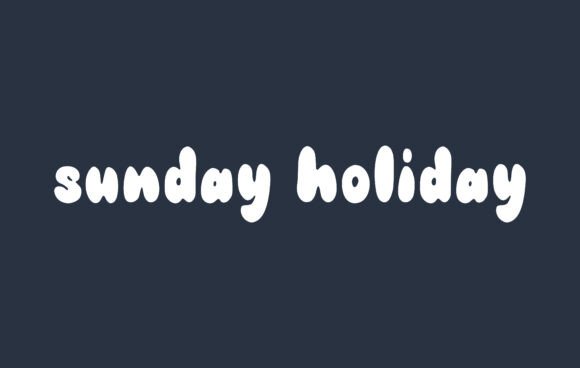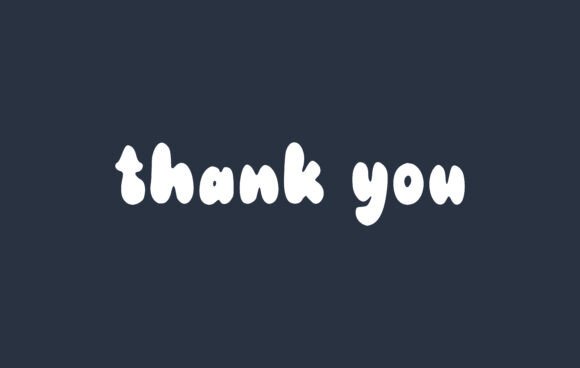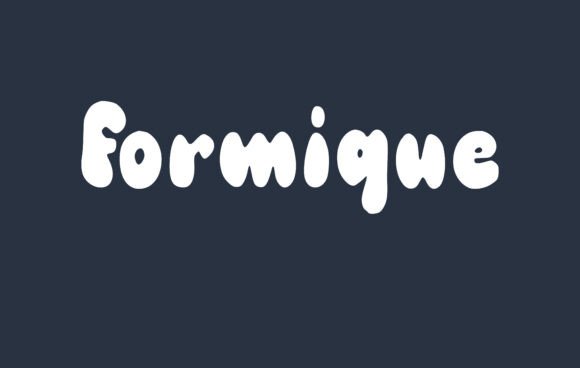
Discover the Charm of Formique Font: Elevate Your Designs with a Romantic Touch
In the world of typography, a good font can make all the difference in elevating your creative projects from ordinary to extraordinary. If you’re on the hunt for a font that exudes a romantic touch and authenticity, look no further than Formique Font. This beautifully crafted handwritten font is designed to capture the hearts of designers and crafters alike, offering a versatile and elegant solution for a wide range of design needs.
The Essence of Formique Font
Formique Font is an authentic handwritten font that brings a unique blend of elegance and charm to any design project. Its romantic touch is undeniable, making it perfect for projects that require a personal and heartfelt feel. Whether you’re working on a wedding invitation, a branding campaign, or a social media post, Formique Font is sure to add a touch of sophistication and whimsy.
What Makes Formique Font Stand Out?
• Legibility and Versatility: One of the standout features of Formique Font is its exceptional legibility. This font is designed to be easy to read, making it suitable for both title and body text. Its versatility means you can use it across various design projects, from magazine headlines to social media graphics, and even wedding invitations and cards.
• Romantic and Authentic: Formique Font boasts a romantic and authentic feel that sets it apart from more generic fonts. Its handwritten nature gives it a personal touch that can make your designs feel more approachable and engaging.
• Ease of Use: Designed with the user in mind, Formique Font is easy to incorporate into your projects. Whether you’re a seasoned designer or a crafting enthusiast, you’ll find that this font is a joy to work with.
Applications of Formique Font
The possibilities are endless when it comes to using Formique Font. Here are some ideas to get you started:
• Magazine Headlines: Add a touch of elegance to your magazine or editorial designs with Formique Font. Its romantic feel makes it perfect for feature articles, editorials, or any content that requires a personal touch.
• Social Media Graphics: Elevate your social media presence with eye-catching graphics featuring Formique Font. Whether you’re creating posts, stories, or ads, this font is sure to make your content stand out.
• Branding and Packaging: Give your brand a unique and memorable identity with Formique Font. Its authentic and romantic feel can help you connect with your audience on a more personal level.
• Wedding Invitations and Cards: Make your wedding invitations, cards, and other stationery truly special with Formique Font. Its elegant and whimsical nature makes it perfect for celebrating life’s special moments.
Tips for Getting the Most Out of Formique Font
To truly make Formique Font shine in your designs, consider the following tips:
• Experiment with Colors: Play around with different colors to find the perfect match for your design. Formique Font looks great in a variety of colors, from soft pastels to rich jewel tones.
• Mix and Match: Don’t be afraid to combine Formique Font with other fonts to create a unique and visually appealing design. Its versatility makes it easy to pair with a wide range of typography styles.
• Pay Attention to Spacing: Ensure that your text is easy to read by paying attention to spacing. Formique Font is designed to be legible, but proper spacing can enhance its beauty and effectiveness.
Formique Font is a true gem in the world of typography, offering a unique blend of romance, authenticity, and versatility. Whether you’re a designer looking to elevate your projects or a crafter seeking the perfect font for your creations, Formique Font is sure to exceed your expectations. With its exceptional legibility, romantic touch, and wide range of applications, this font has the potential to take your creative ideas to new heights. So why wait? Discover the charm of Formique Font today and unlock a world of design possibilities.